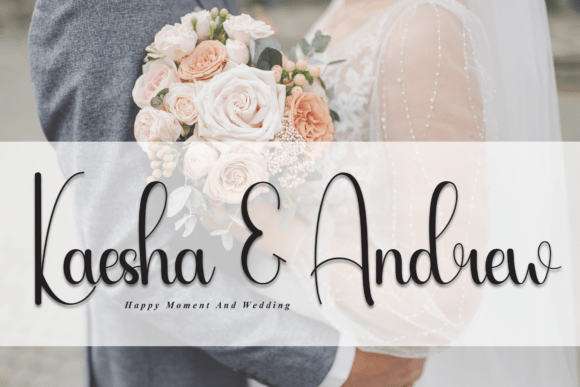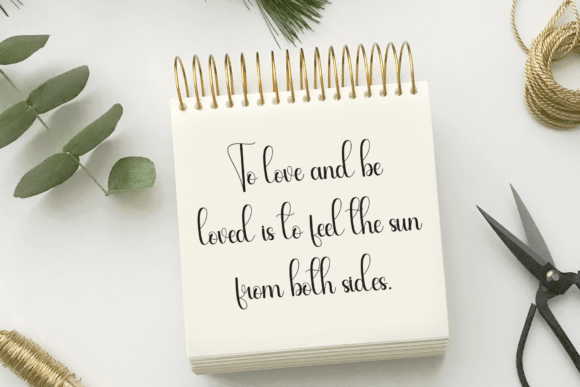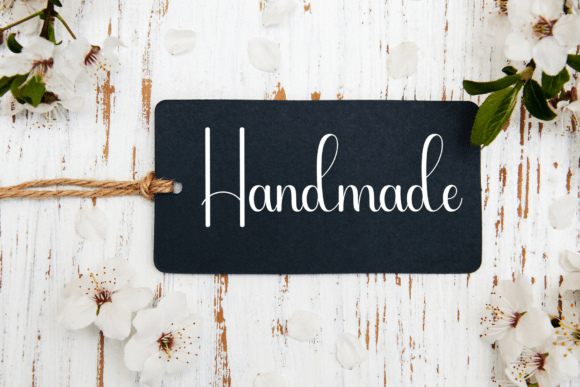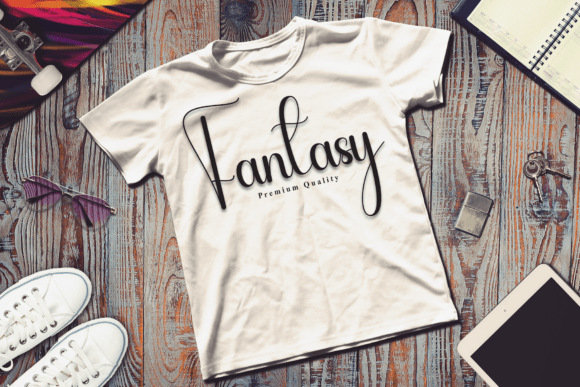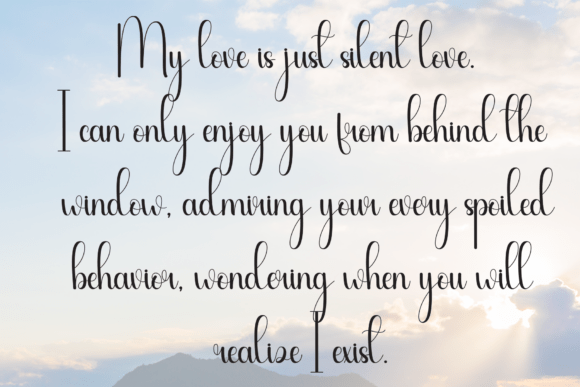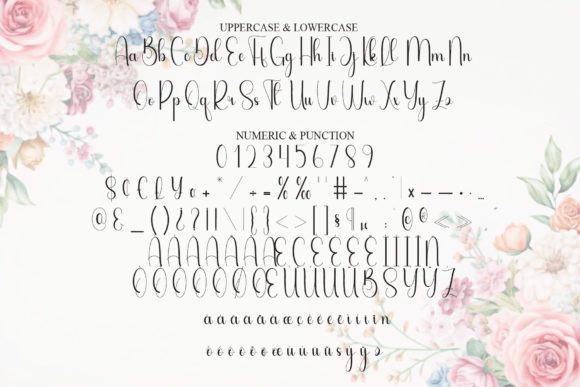
The Beauty of Beautiful Font: Elevating Design with Elegance and Charm
In the world of typography, few fonts capture the essence of elegance and charm as effortlessly as Beautiful Font. This stunning handwritten script font has been making waves in the design community, and for good reason. With its fluid, graceful strokes, Beautiful Font is the perfect addition to any design project that requires a touch of sophistication and refinement.
What Makes Beautiful Font So Special?
Beautiful Font is more than just a pretty face; it’s a masterclass in typographic design. The font’s smooth curves and natural flow create a timeless, refined look that’s perfect for a wide range of applications, from branding and invitations to stationery and more. Whether you’re a seasoned designer or a crafty DIY enthusiast, Beautiful Font is sure to elevate your work to new heights.
The Characteristics of Beautiful Font
So, what sets Beautiful Font apart from other fonts? Here are just a few of its key characteristics:
- Fluid, graceful strokes: Beautiful Font’s strokes are smooth and flowing, giving the font a sense of movement and energy.
- Elegant and charming: This font exudes a sense of sophistication and refinement, making it perfect for high-end designs.
- Timeless and refined: Beautiful Font’s classic look ensures that it will never go out of style, making it a great investment for designers and crafters.
- Versatile: This font can be used for a wide range of applications, from digital designs to print materials.
Using Beautiful Font in Your Designs
Beautiful Font is incredibly versatile, making it perfect for a wide range of design projects. Here are just a few ideas to get you started:
- Branding: Use Beautiful Font to create a sophisticated and elegant brand identity that will set your business apart.
- Invitations: Add a touch of refinement to your invitations with Beautiful Font, perfect for weddings, baby showers, and more.
- Stationery: Elevate your stationery with Beautiful Font, creating a cohesive and stylish look that’s perfect for personal or business use.
- Digital designs: Use Beautiful Font in your digital designs, such as social media graphics, blog headers, and more.
Tips for Working with Beautiful Font
To get the most out of Beautiful Font, here are a few tips to keep in mind:
- Use it sparingly: Beautiful Font is a statement font, so use it sparingly to avoid overwhelming your design.
- Pair it with complementary fonts: Beautiful Font pairs well with clean, sans-serif fonts, so try pairing it with fonts like Arial or Helvetica.
- Experiment with colors: Beautiful Font looks great in a range of colors, so don’t be afraid to experiment and find the perfect hue for your design.
Beautiful Font is a truly special font that can elevate any design project to new heights. With its fluid, graceful strokes and timeless, refined look, it’s the perfect addition to any designer’s toolkit. Whether you’re a seasoned pro or just starting out, Beautiful Font is sure to inspire and delight. So why not give it a try and see the beauty for yourself?
In conclusion, Beautiful Font is a must-have for any designer or crafter looking to add a touch of elegance and charm to their work. Its versatility, sophistication, and timeless appeal make it the perfect font for a wide range of applications. So, go ahead and get creative with Beautiful Font – your designs will thank you!